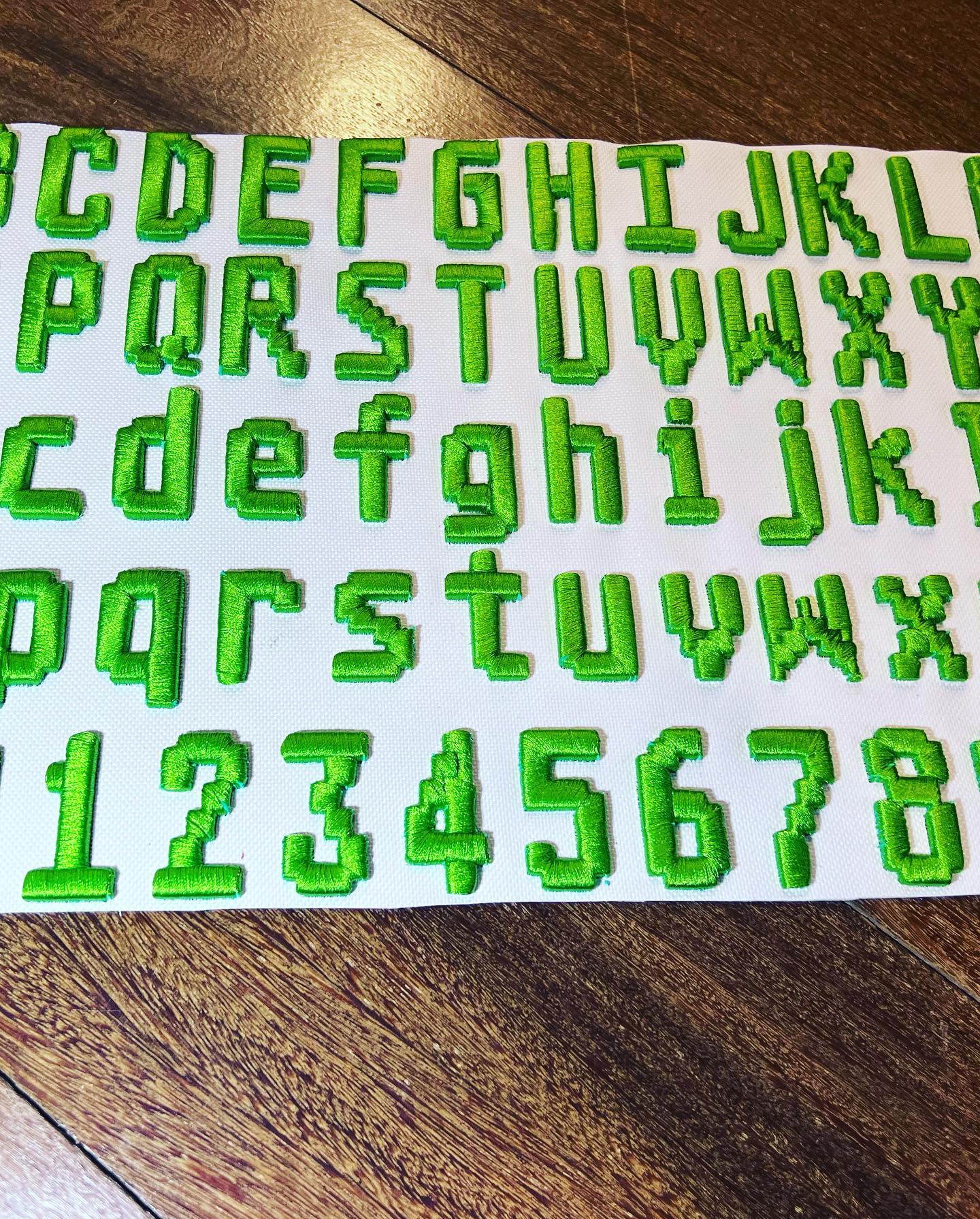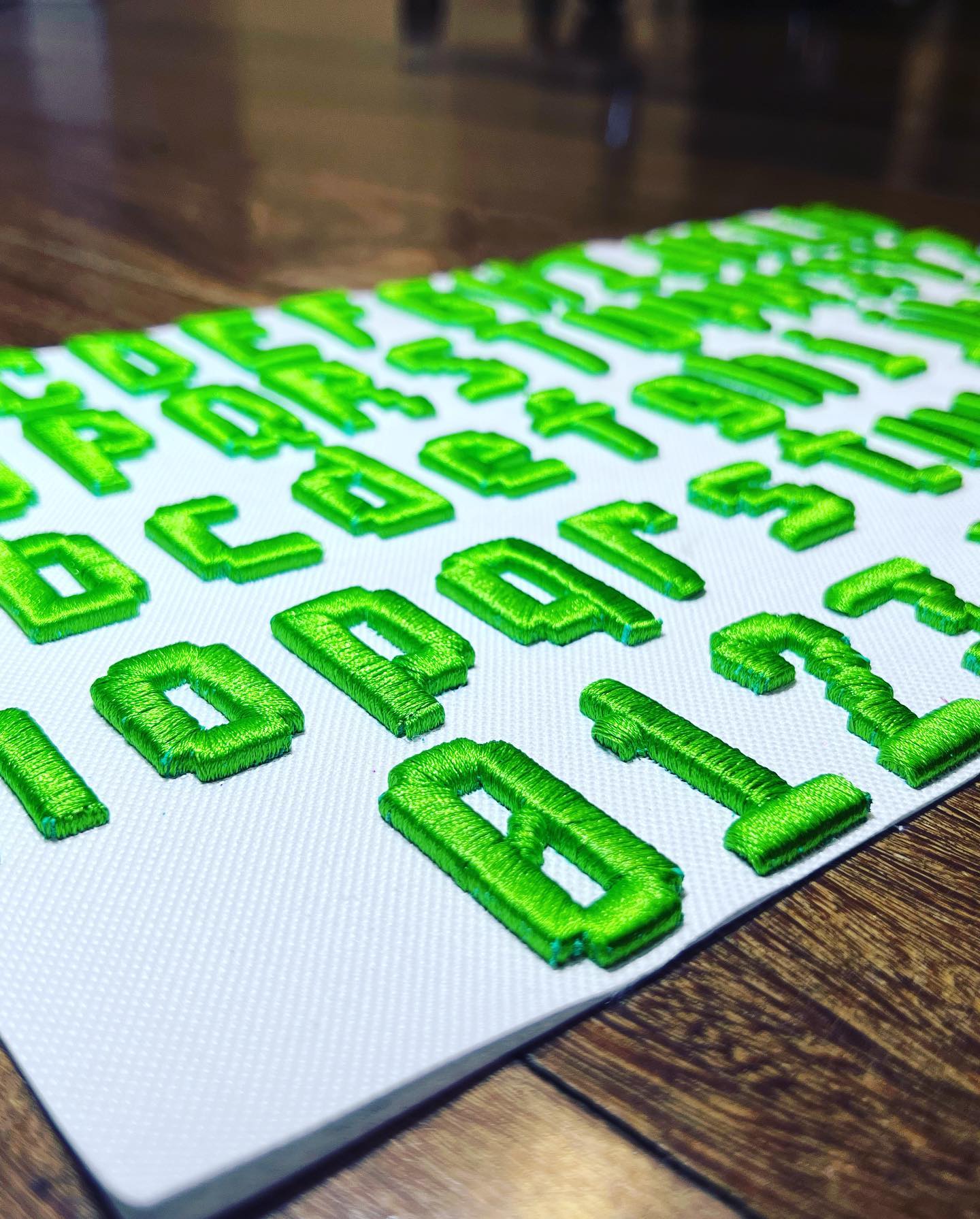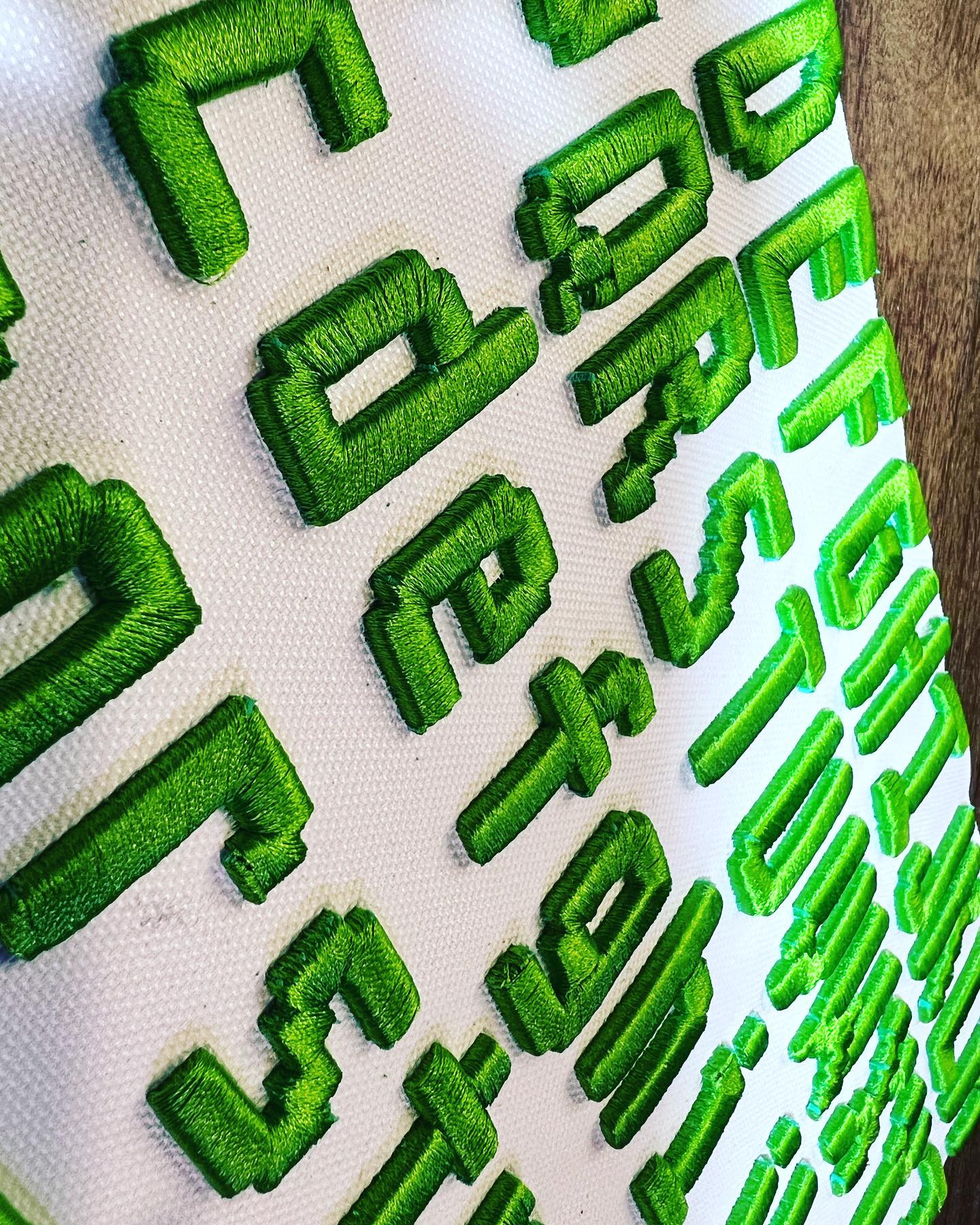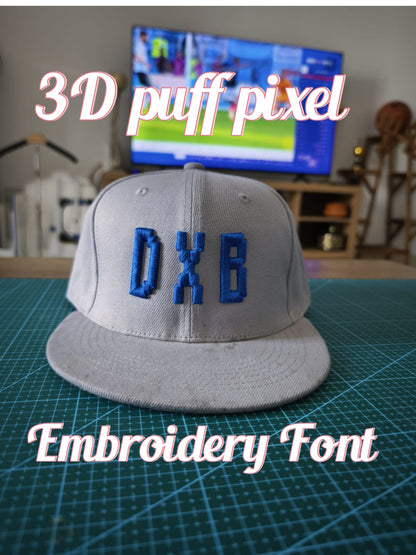
Pixel Puff Retro: 3D Atari-Inspired Embroidery Font Collection
Channel the golden age of gaming with PixelPuff Retro, a bold embroidery font collection that resurrects the iconic 8-bit Atari aesthetic in tactile 3D puff glory.
Every uppercase, lowercase letter, and number is crafted to mimic retro pixel perfection, elevated by raised foam stitching for a dimensional, arcade-ready vibe.
From Pac-Man yellow to Space Invader green, customize your designs with vibrant thread colors that pop against hats.
8-Bit Authenticity: Blocky, pixel-perfect characters that scream 1980s arcade nostalgia.
3D Arcade Texture: Foam underlay adds depth, turning flat pixels into tactile, joystick-worthy art.
Full Character Set: Craft slogans, gamertags, or crypto wallet phrases with A-Z, a-z, and 0-9 consistency.
Perfect for esports teams, retro merch, or tech-geek fashion, PixelPuff Retro merges old-school cool with modern streetwear edge. Game over? Never.